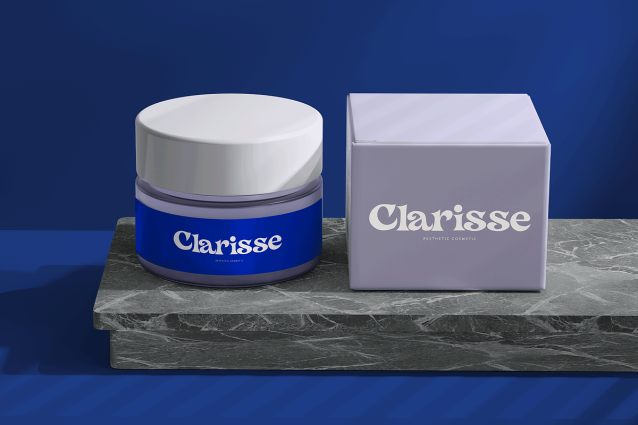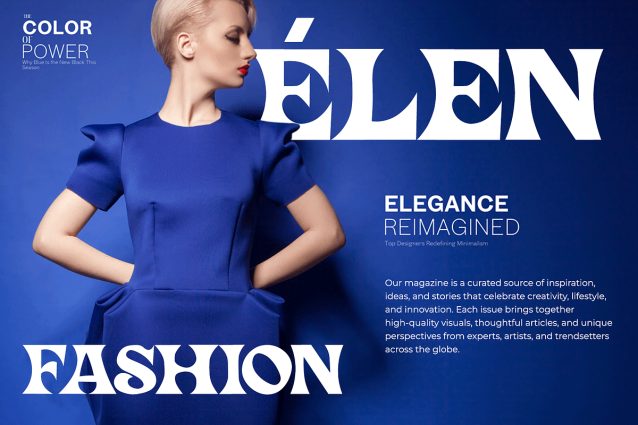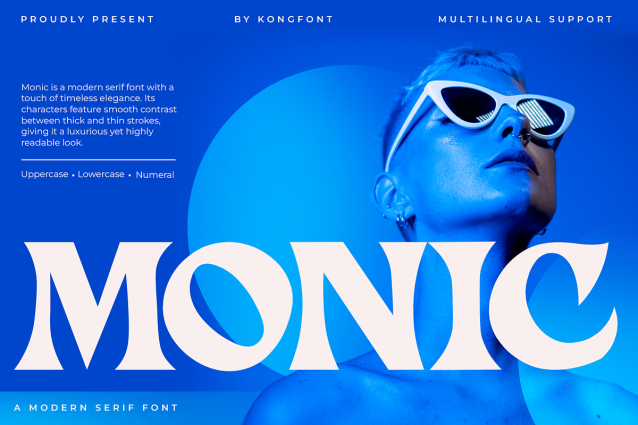
Monic Serif Font
Monic Serif Font a modern serif font crafted to bring sophistication and clarity to your creative projects. With its sharp serifs, balanced proportions, and contemporary details, Monic offers a perfect blend of classic elegance and modern refinement.